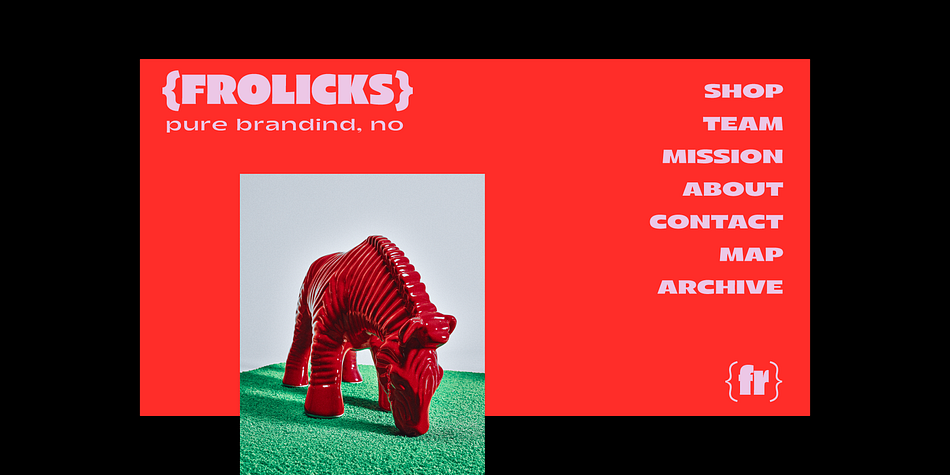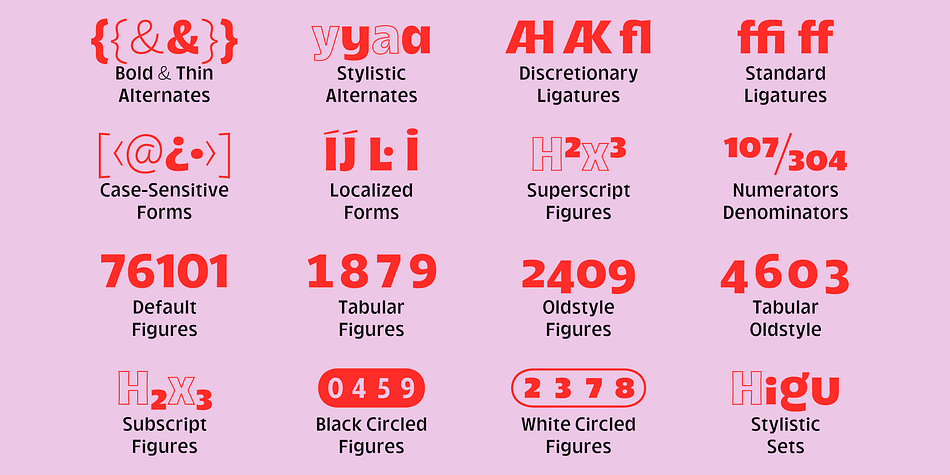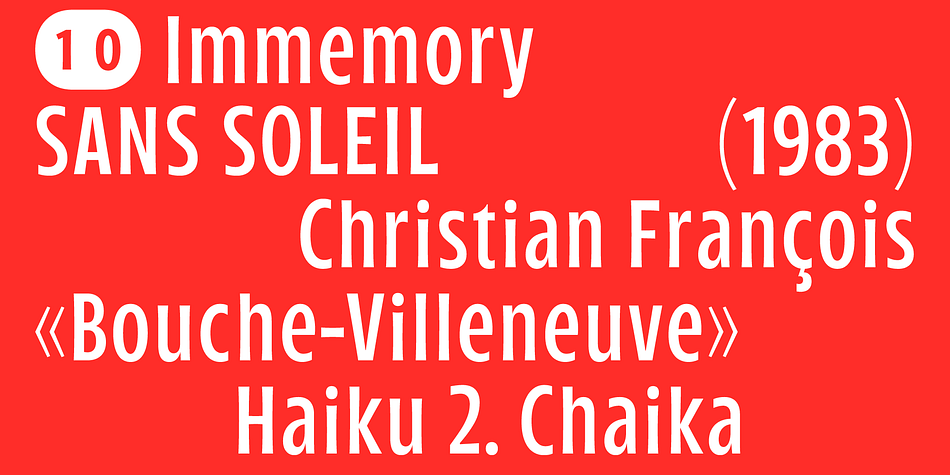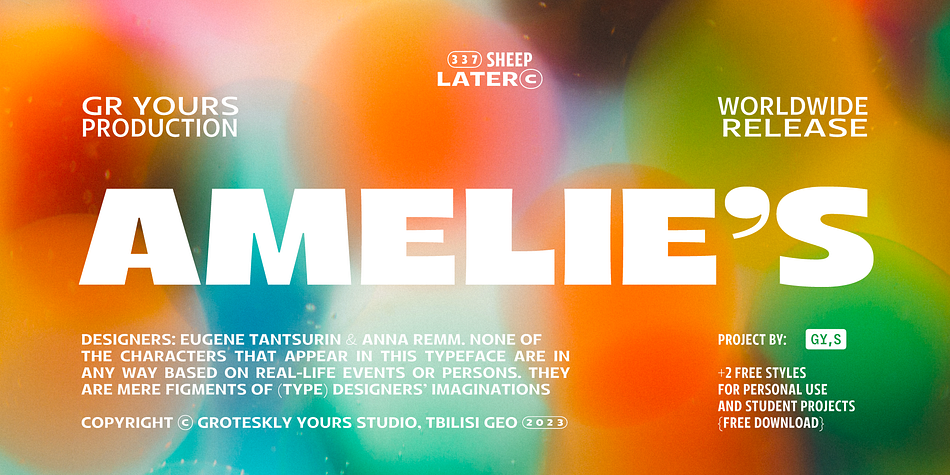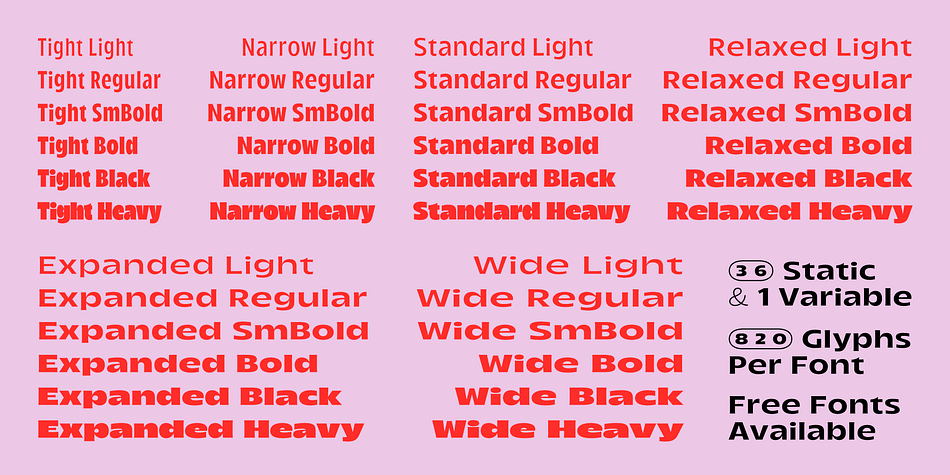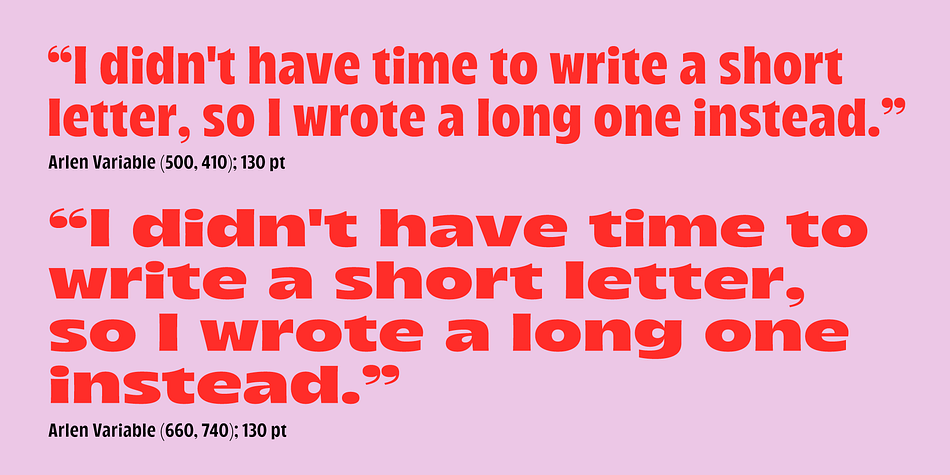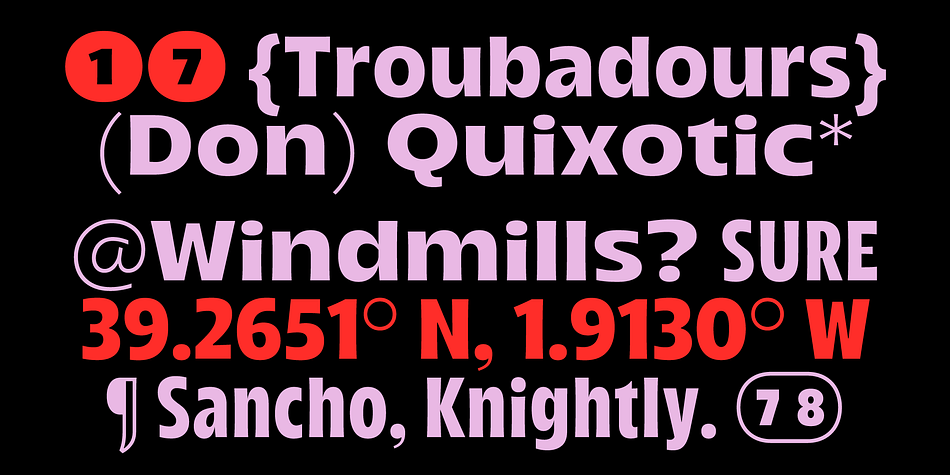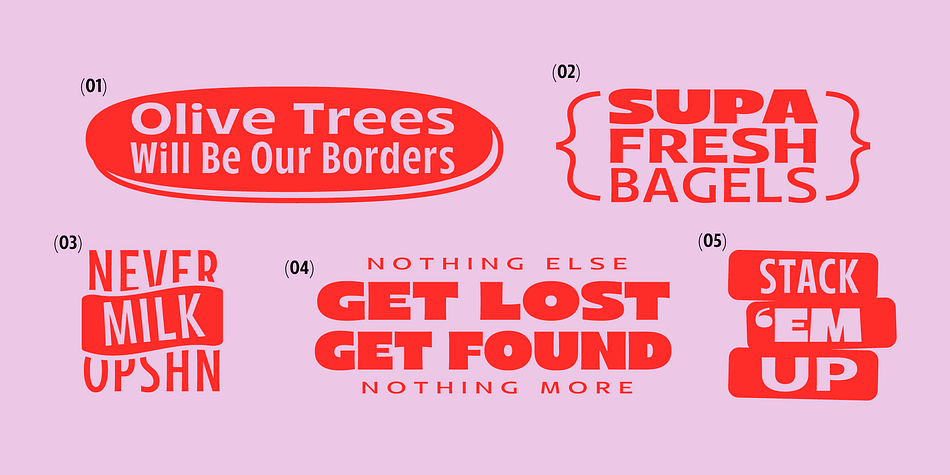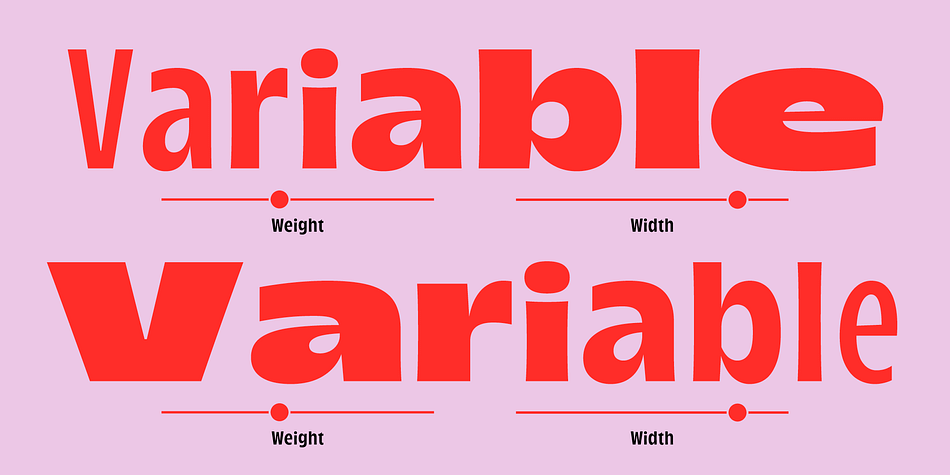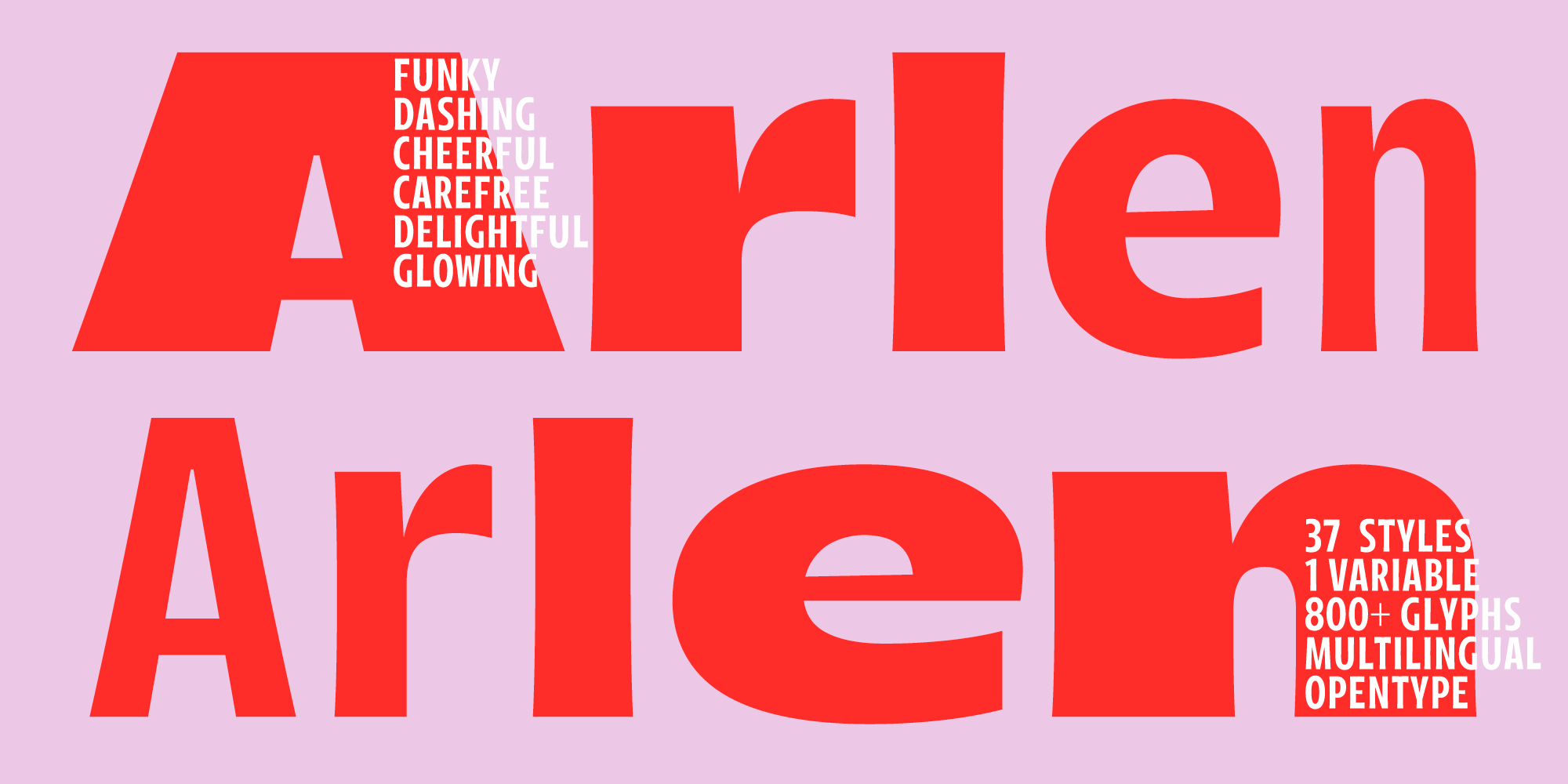
Meet Arlen, a funky, variable and indescribably charming type family in 36 styles. Loosely inspired by 20th century hand-painted signs and the visual culture of the 80, Arlen adds a little extra to this already charismatic mix. Originally conceived as a much smaller family, Arlen slowly developed into a large type system with 6 widths (from Tight to Wide) and 6 weights (Light to Heavy). A variable font that encompasses all these weights and widths is also part of the Arlen family.
Arlen is a display sans serif that can, however, be freely used for larger bodies of text, especially when lighter styles are used. Among its most prominent visual features are high contrast, flaring stems and dynamic letterforms.
With 860 characters in each font, Arlen supports most Latin-based languages and offers a large number of extra characters, dingbats, alternate glyphs, ligatures, and punctuation marks. Some of the most useful OpenType features are included too, such as Case-Sensitive Punctuation, Stylistic Alternates, Tabular Figures and Currencies, Fractions, Localisation, and a lot more. Some letters and characters come in two versions: thin and bold, and you can easily alternate between the two using a corresponding stylistic set.
Arlen is a typeface that conveys kindness, good cheer, and only good vibes. It would feel at home both in digital and print mediums; it can be used in advertising, editorial design, social media, web design, or personal design projects. With versatility at its heart, Arlen would be a perfect typeface for large design systems that require multiple styles for typesetting.